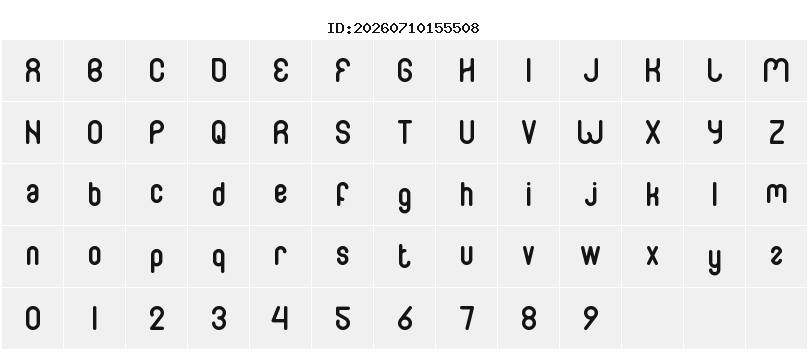
• Font Name: FAMILY & friend
FAMILY & friend.ttf is a modern, elegant sans-serif font designed for ultimate readability and visual harmony. Perfect for branding, headlines, web design, and print materials.